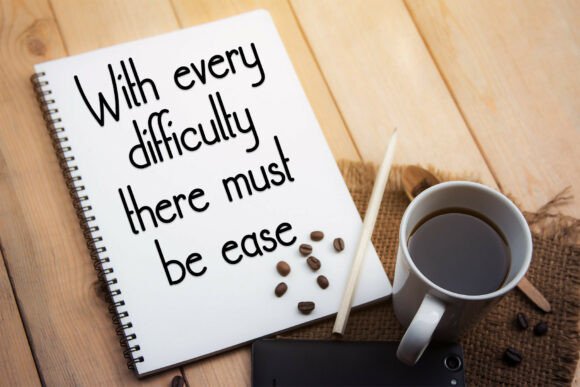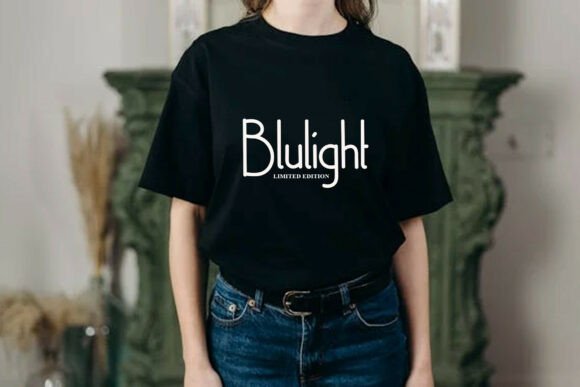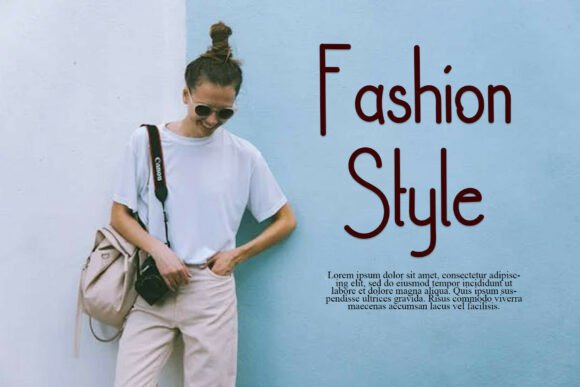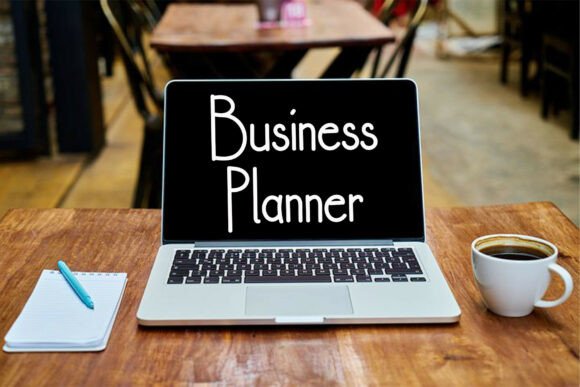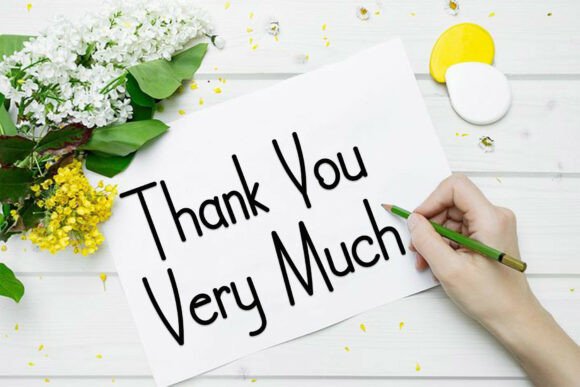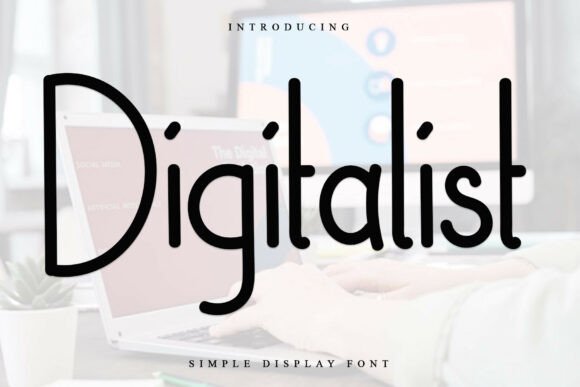
Introducing Digitalist Font: Elevate Your Designs with Elegance and Sophistication
In the world of digital design, typography plays a crucial role in conveying the tone and aesthetic of a project. A well-chosen font can elevate your design, making it more engaging, readable, and memorable. If you’re a designer or crafter looking for a stylish, beautiful, and elegant font to enhance your projects, look no further than Digitalist Font. Inspired by timeless classic calligraphy, Digitalist Font brings a contemporary atmosphere and impeccable form to your designs.
What Makes Digitalist Font Stand Out?
Digitalist Font is a masterpiece of modern typography, boasting a balanced and varied design that ensures your projects stand out from the crowd. Here are some key features that make Digitalist Font a must-have for designers and crafters:
- Contemporary yet Classic: Digitalist Font strikes the perfect balance between modern elegance and timeless classic calligraphy. Its sophisticated design ensures that your projects exude a sense of refinement and luxury.
- PUA Encoded: Digitalist Font is PUA (Private Use Area) encoded, which means you can easily access all the amazing glyphs and ligatures. This feature allows you to add an extra layer of creativity and uniqueness to your designs.
- Balanced and Varied: The font’s balanced and varied design ensures that it can be used for a wide range of projects, from elegant headings and titles to body text and more.
The Benefits of Using Digitalist Font
So, why should you choose Digitalist Font for your next project? Here are just a few benefits of using this stunning font:
- Enhance Your Design’s Beauty: Digitalist Font is designed to enhance the beauty of your projects, adding a touch of elegance and sophistication to your designs.
- Improve Readability: The font’s clear and balanced design ensures that your text is easy to read, making it perfect for body text, headings, and more.
- Stand Out from the Crowd: With its unique and stylish design, Digitalist Font is sure to make your projects stand out from the crowd.
Who Can Benefit from Digitalist Font?
Digitalist Font is perfect for a wide range of designers and crafters, including:
- Graphic Designers: Add a touch of elegance and sophistication to your designs with Digitalist Font.
- Digital Artists: Use Digitalist Font to add a unique and stylish element to your digital art.
- Crafters: Perfect for crafters who want to add a professional touch to their handmade projects.
- Web Designers: Use Digitalist Font to create stunning website headers, titles, and more.
In conclusion, Digitalist Font is a stylish, beautiful, and elegant font that is perfect for designers and crafters looking to elevate their designs. With its contemporary atmosphere, impeccable form, and PUA encoding, Digitalist Font is sure to become a go-to font in your collection. So why wait? Download Digitalist Font today and start creating stunning designs that exude elegance and sophistication!